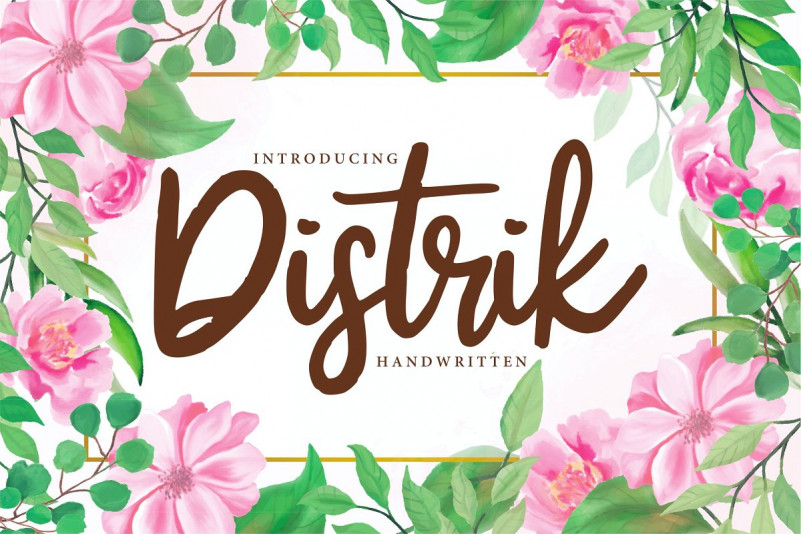
Distrik Font
Distrik | Handwritten Script Font with a calligraphy style, So beautiful on invitation like greeting cards, branding materials, business cards, quotes, posters, and more!